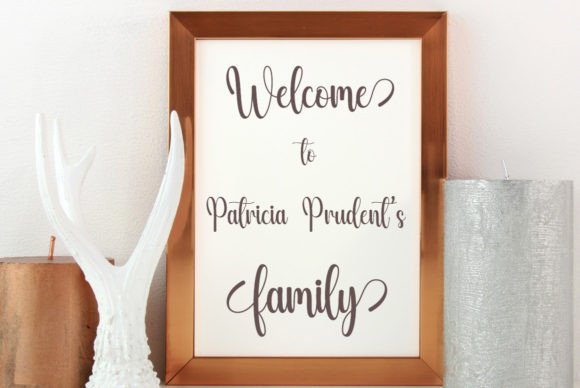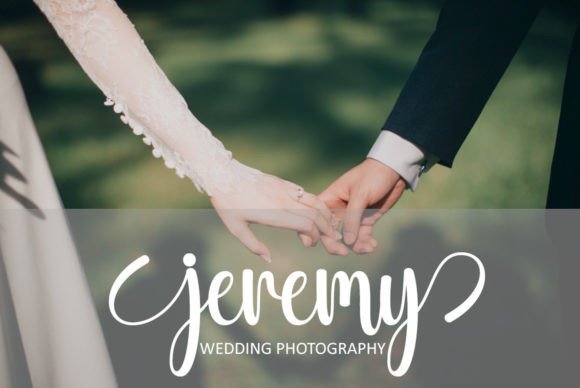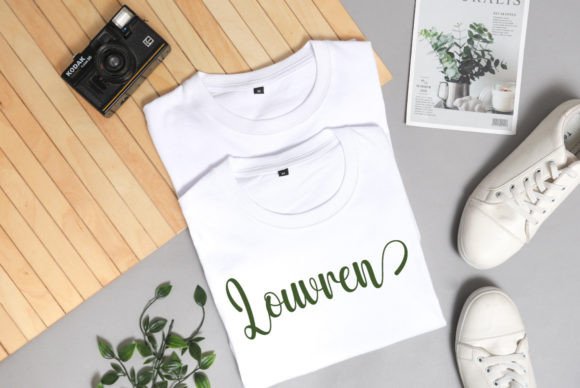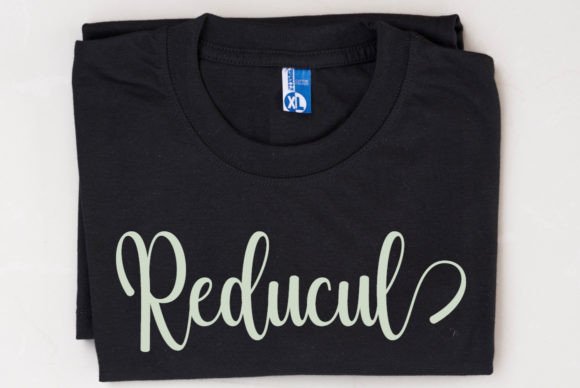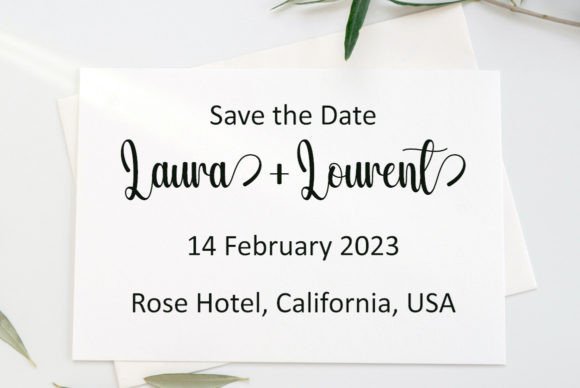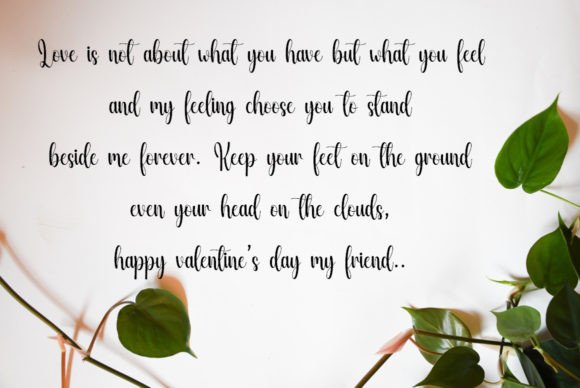
Introduction to Inline Font
Inline is a romantic and sweet handwritten font with characters that dance along the baseline.
It has a casual, yet elegant touch It can be used for various purposes such as logos, wedding invitations, headings, T-shirts, letterheads, signage, labels, news, posters, badges, and so much more.